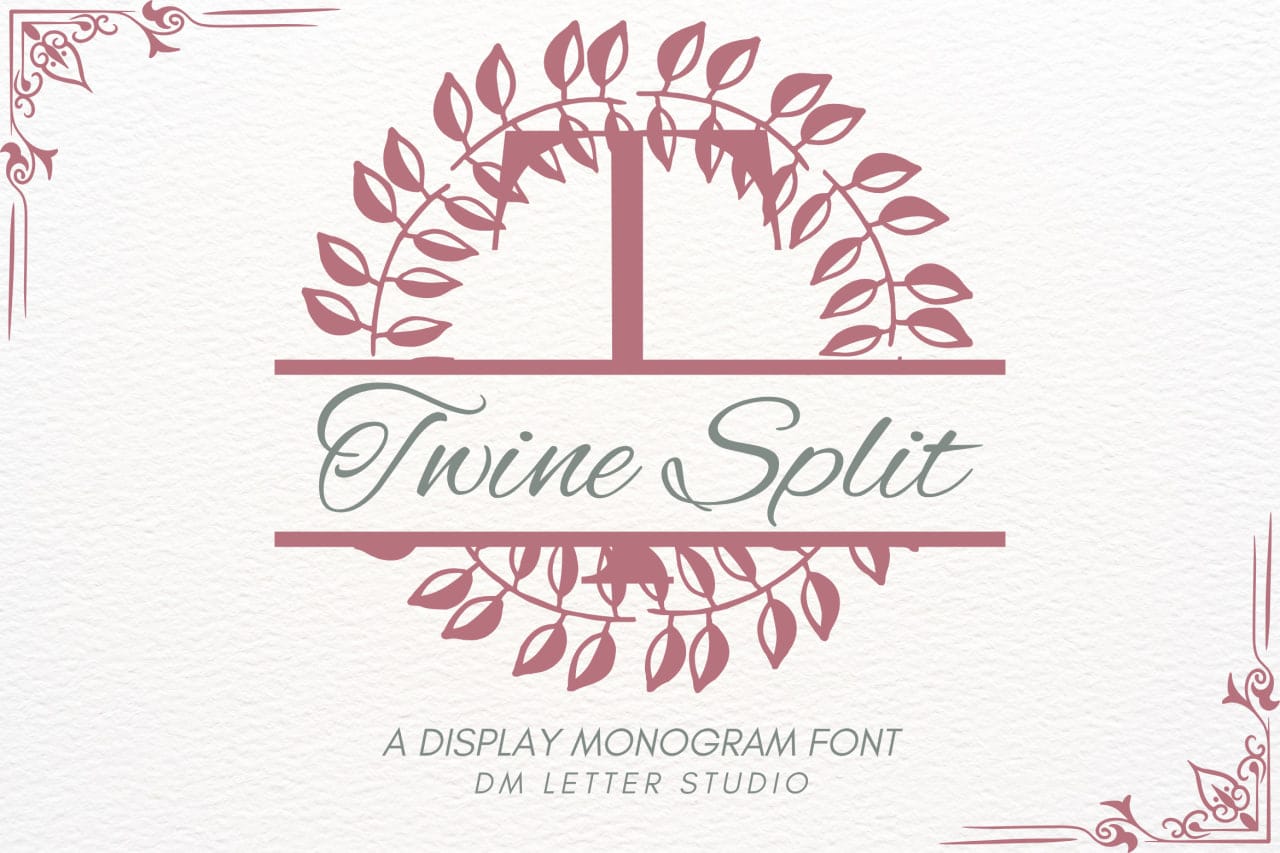
Meet Twine Split Monogram Font
Twine Split Monogram turns simple initials into clean, elegant emblems with a neat center split for names or dates. The letterforms feel soft and refined, with smooth curves that stay balanced at any size. Because counters remain open, small tags print crisp while larger designs look polished and premium. Use it for wedding suites, boutique logos, keepsake gifts, stationery, and luxury packaging. As a result, your designs feel personalized and thoughtfully crafted without extra work.
Why Twine Split Monogram sells
First, setup is fast in Canva, Photoshop, and Illustrator. Next, the clean outlines cut and print beautifully for foil, emboss, deboss, engraving, laser, vinyl, DTF, and sublimation. Then layouts come together quickly because spacing is steady and predictable. Moreover, the split layout adds instant personalization, which helps custom products look higher value. Therefore, your shop can offer name-ready designs that feel premium and consistent.
Fast layouts with the Twine Split Monogram Font
Start with a bold split initial and center it as the main focus. After that, place a name, family title, or date across the split using a separate supporting font if needed. Because Twine Split holds shape at small sizes, labels, stickers, cards, and tags stay clean. In addition, it works beautifully with oval borders, wreath frames, thin dividers, and subtle botanical accents, so full sets come together quickly. Finally, save palette pairs like sage & ivory, champagne & charcoal, blush & cocoa, or navy & pearl to reuse across your product line.
Creative uses and quick wins
Wedding initials with names across the split
Logo seals, brand badges, and boutique marks
Gift tags, stickers, and keepsake box marks
Packaging labels for candles, soap, perfume, and gifts
Design tips for Twine Split Monogram Font
Keep the center text short so the initial stays the hero. Also, give the monogram breathing room to maintain clarity at small sizes. For a premium finish, try foil stamping, embossing, or letterpress on thick stock. Finally, export at 300 DPI for print and at 2× size for web so edges stay smooth everywhere.